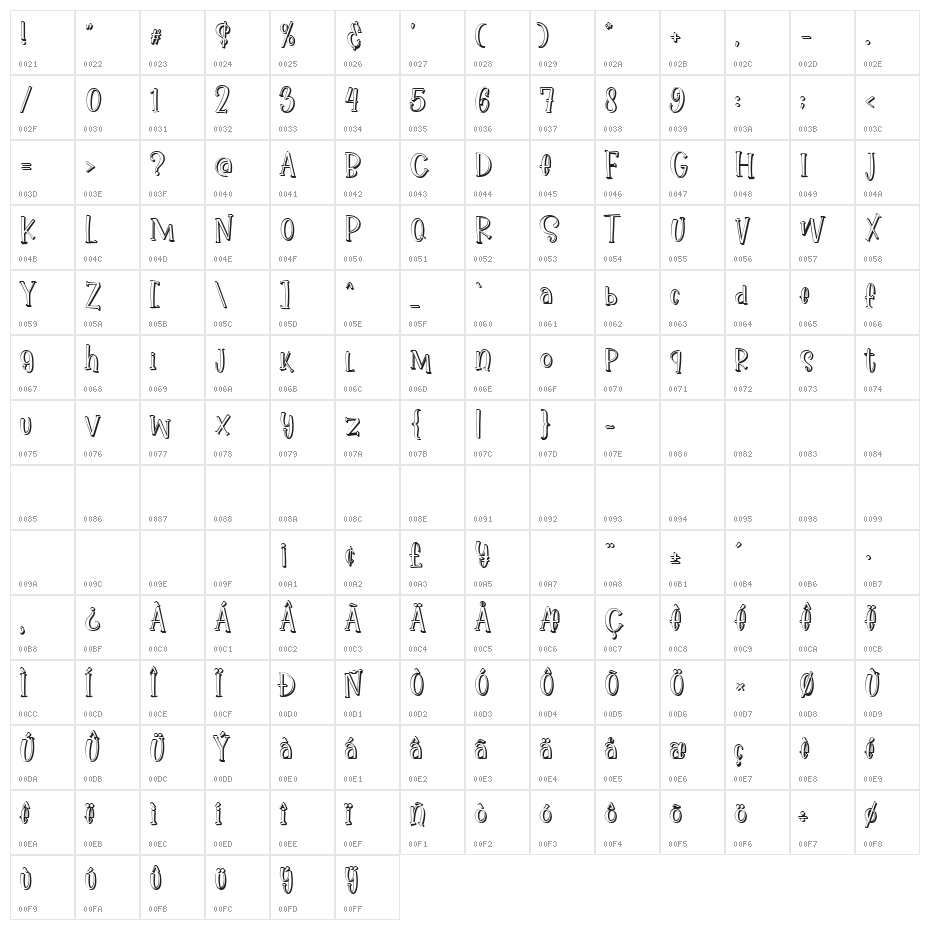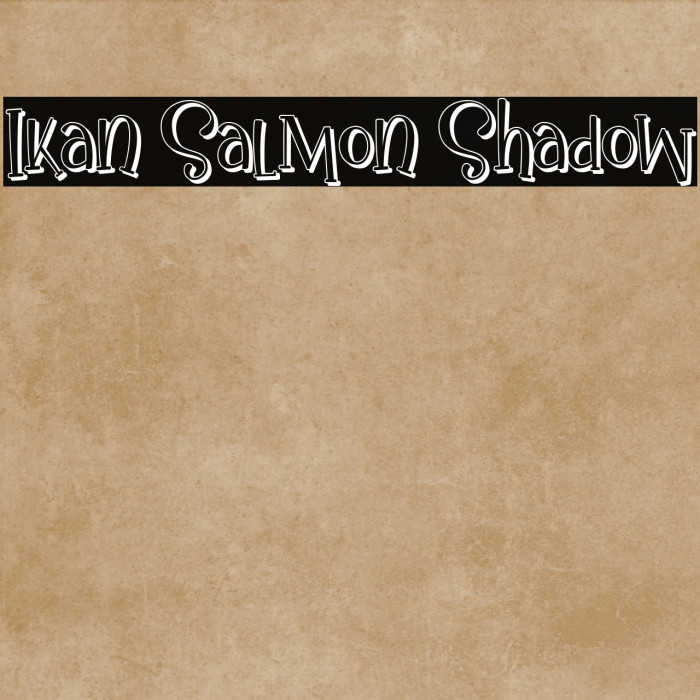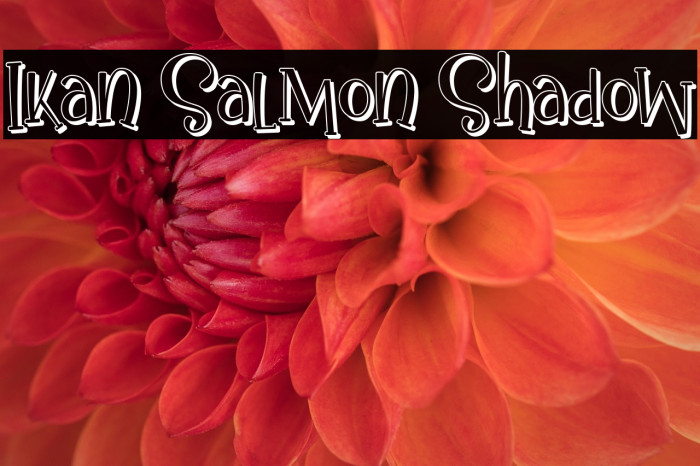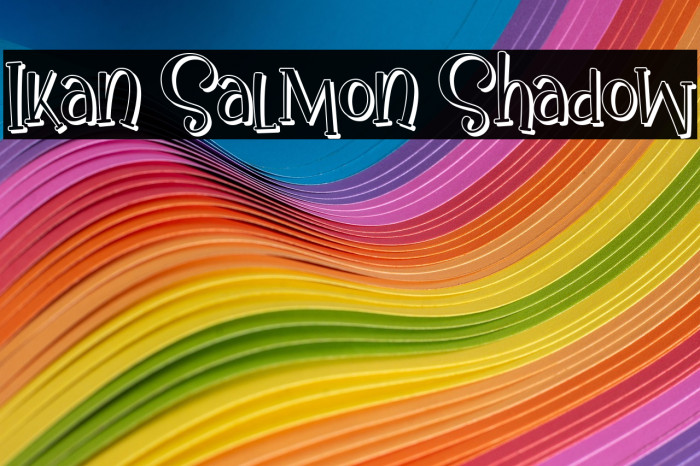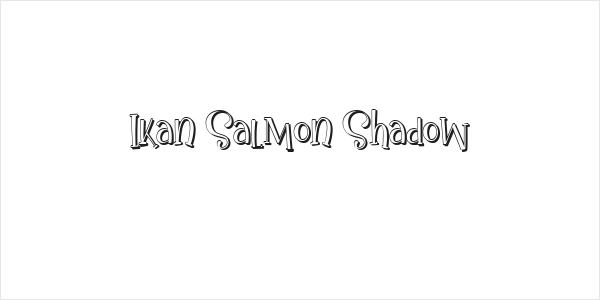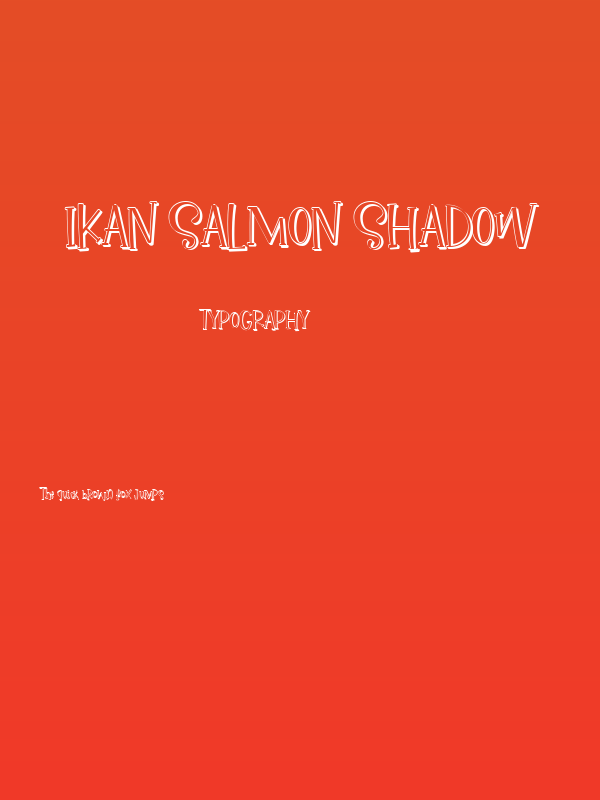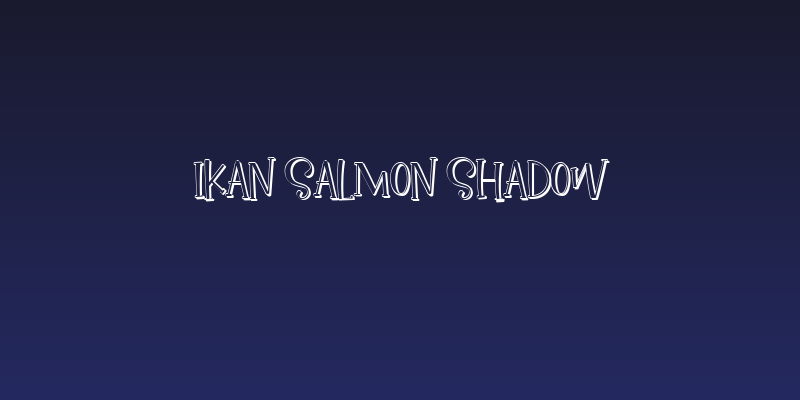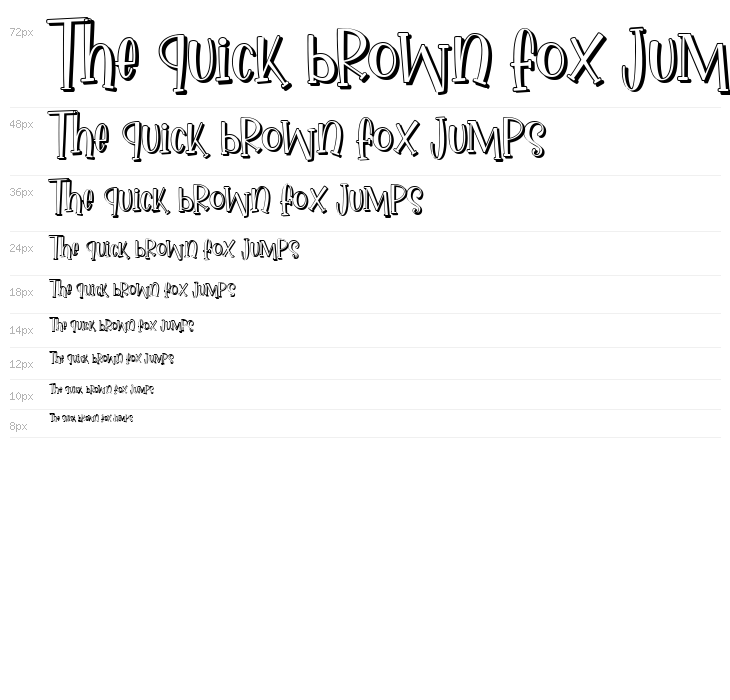
Ikan Salmon Shadow Font
Ikan Salmon Shadow Description
This playful and dynamic font features a bold, hand-drawn style with a shadow effect that adds depth and dimension to each character. The uppercase and lowercase letters are characterized by their whimsical, slightly irregular lines, giving them a casual and friendly appearance. The numbers and special characters maintain this lively aesthetic, making the font versatile for various creative applications. The shadow effect enhances the visual impact, making it suitable for eye-catching designs. Its unique style is perfect for projects that require a fun and informal touch.
| Proposed Projects | Ideal for children's book covers, playful branding, greeting cards, and posters. |